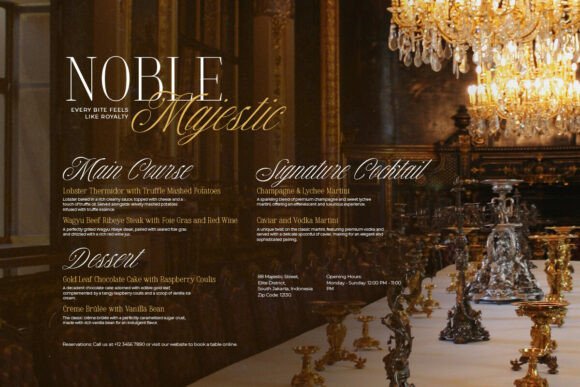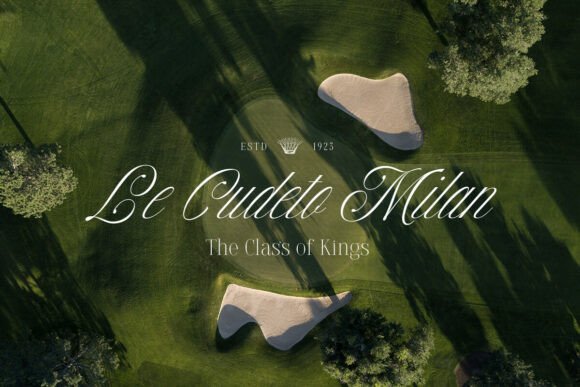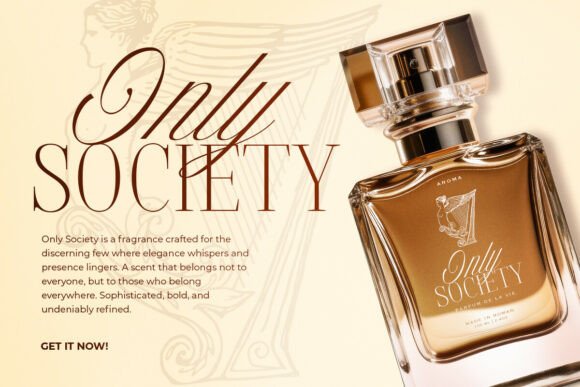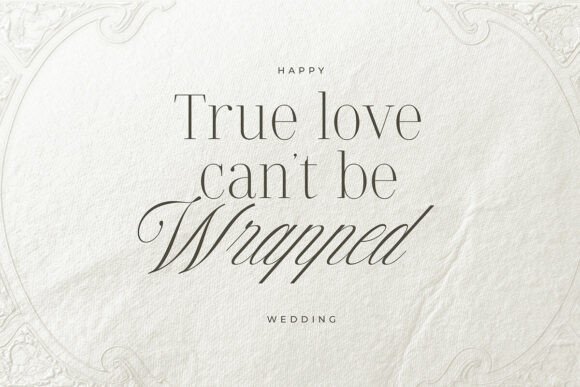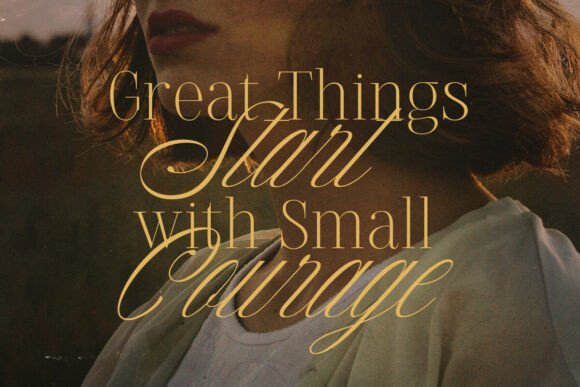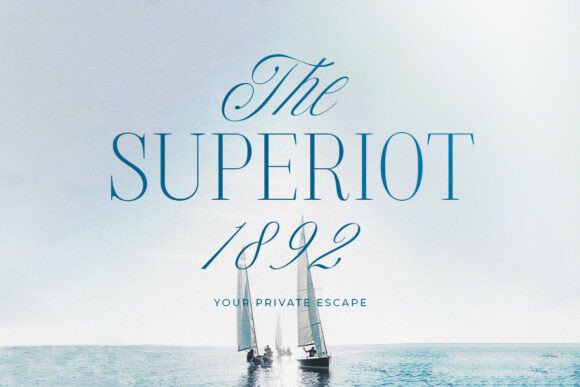
Introduction to Comport Beauty Font
Comport Beauty is a romantic and classy font duo that beautifully blends the sophistication of a serif with the graceful charm of a script, together creating perfect harmony for your dream designs.
Ideal for wedding invitations, branding, logos, or love-themed projects, Comport Beauty brings a sense of warmth and charm to every detail With its versatile style and multilingual support, this duo is made to make every word feel beautiful.
Key Features of Comport Beauty Font
Why Choose Comport Beauty Font?
Comport Beauty Font offers exceptional quality and versatility, making it a valuable addition to your design toolkit. Whether you’re creating for personal projects or commercial use, Comport Beauty Font delivers professional results.